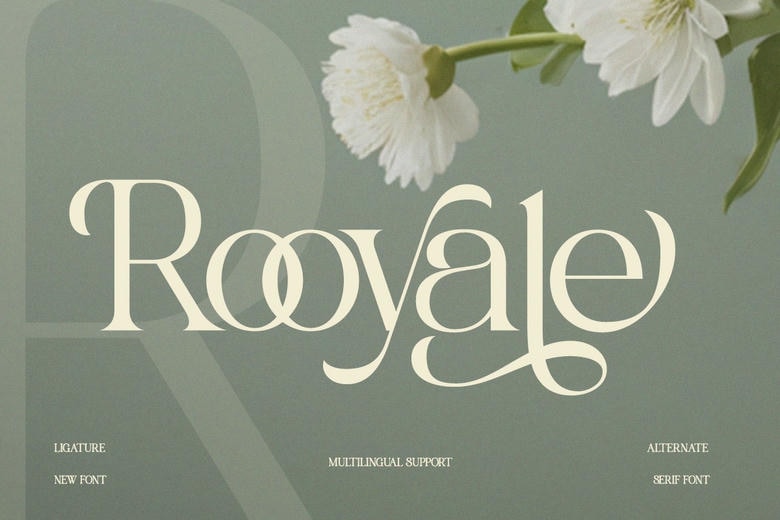
Rooyale Font
Rooyale Font is a modern trendy serif which has beautiful ligatures and low curves. Designed as a luxury branding, beauty packaging, boutique logo, and editorial font, this typeface is the one that adds a sophisticated yet trendy touch to any project. Both online and printed designs of Rooyale are distinguished by its elegant alternatives and light contrast.
Rooyale Serif Font